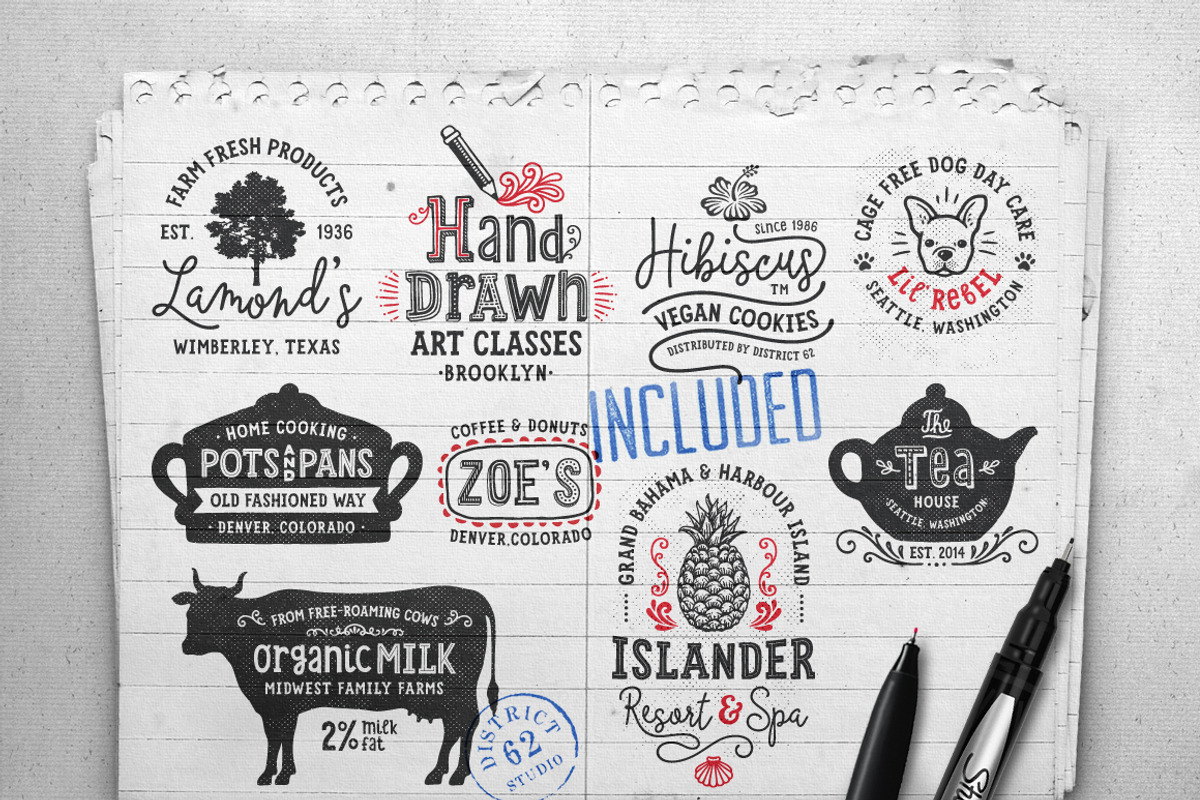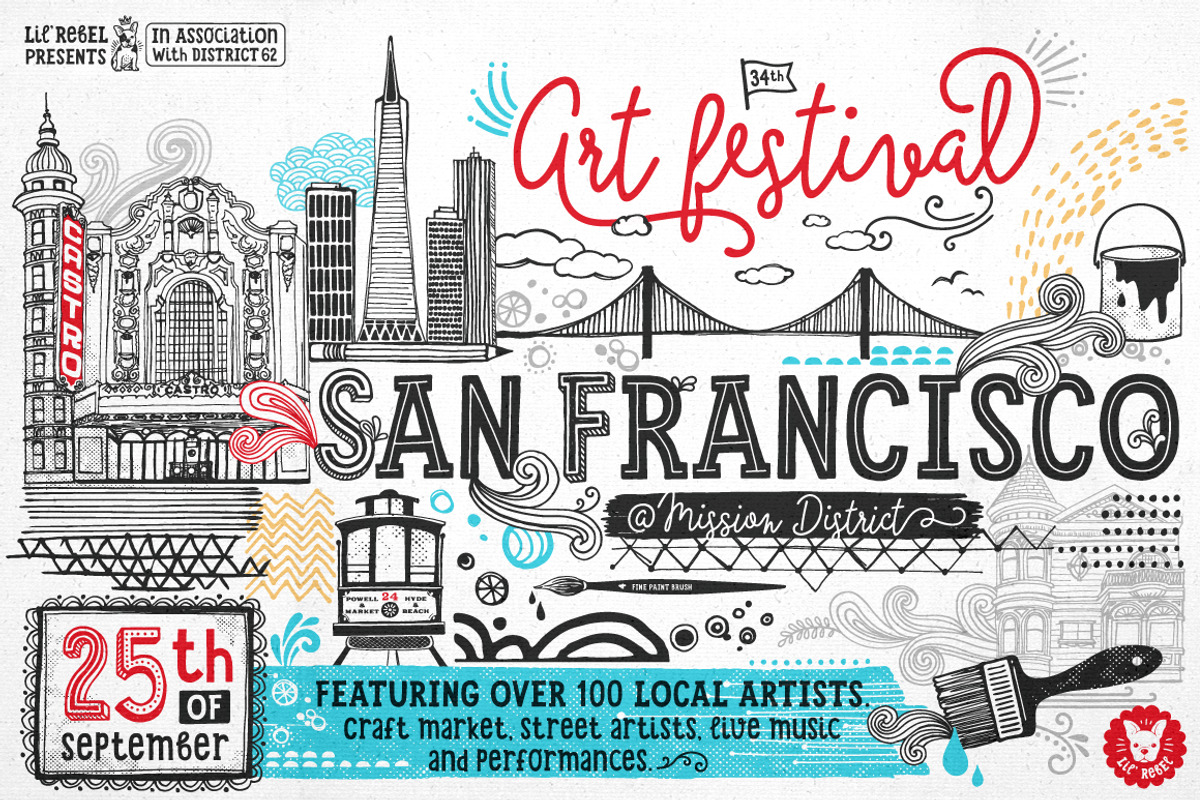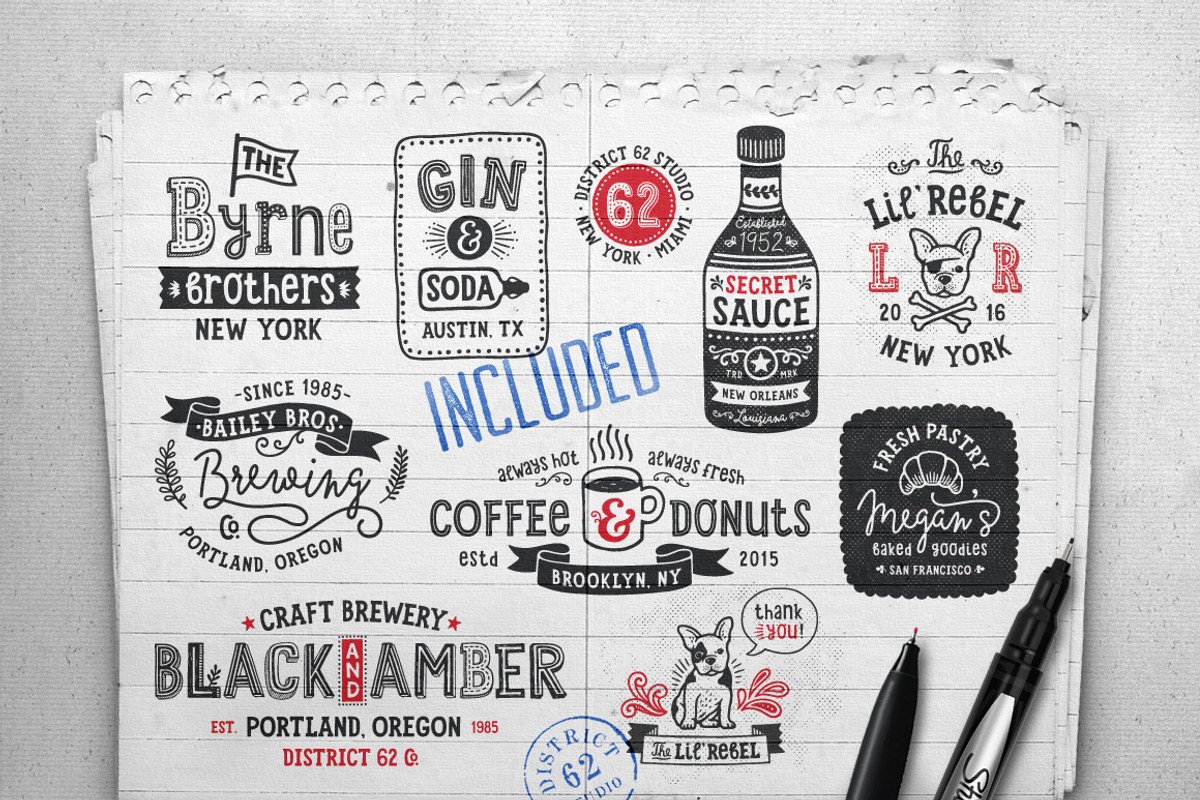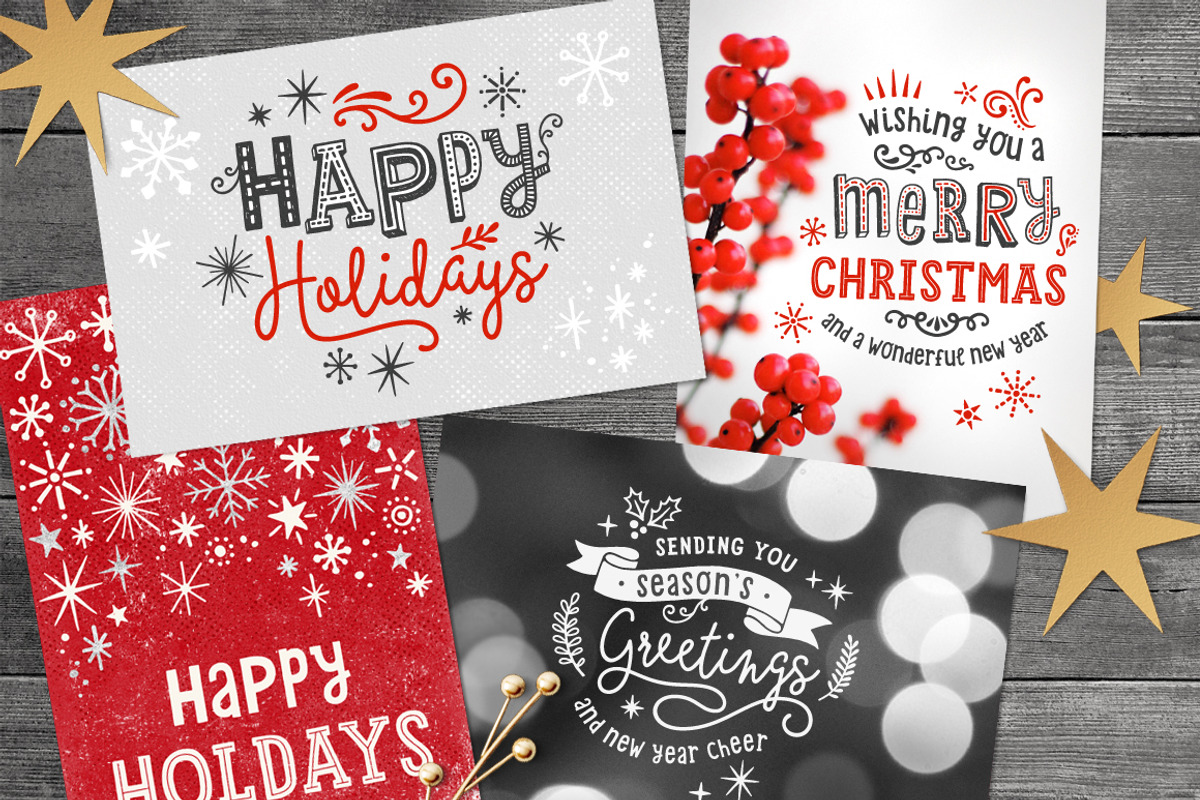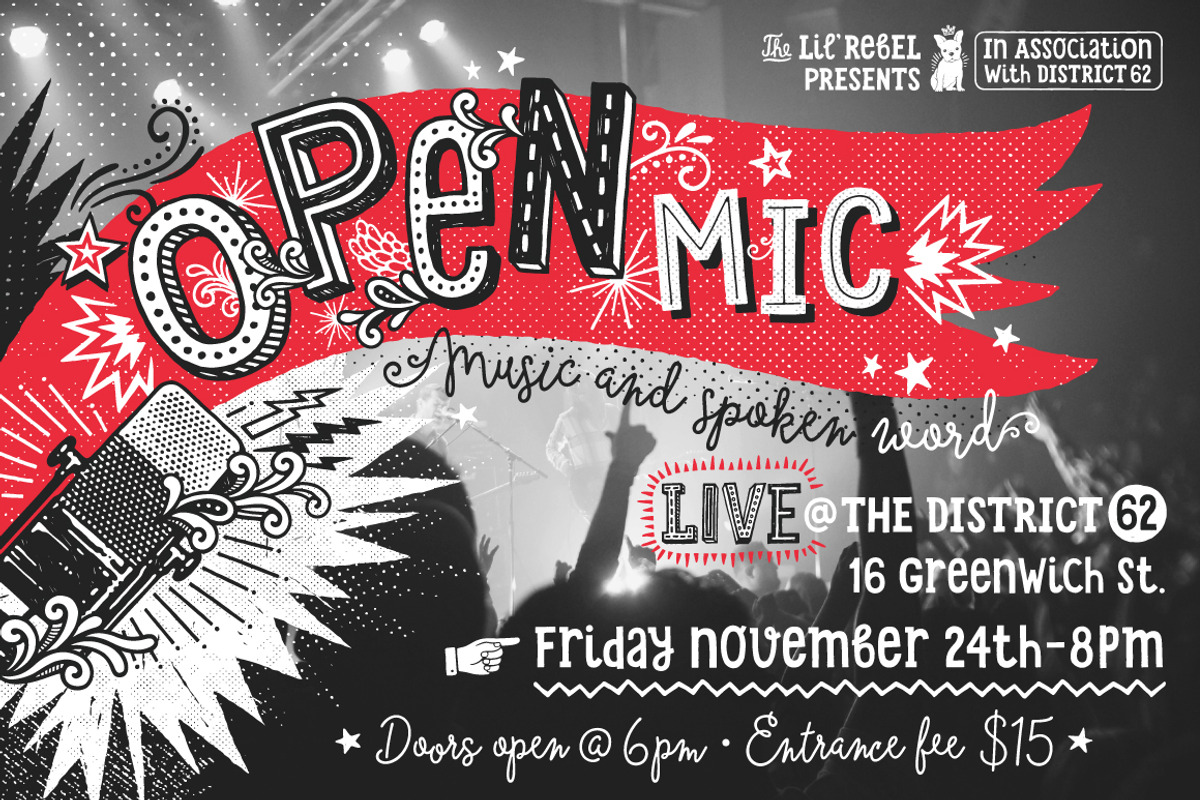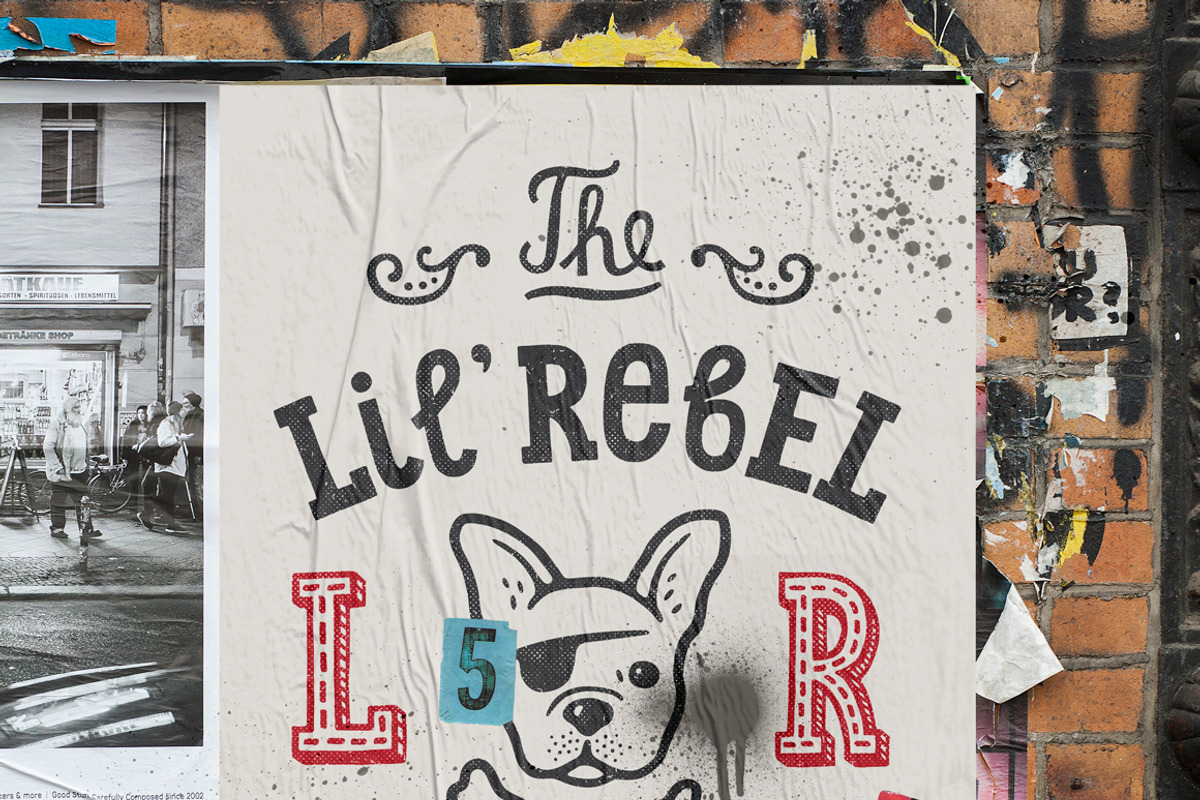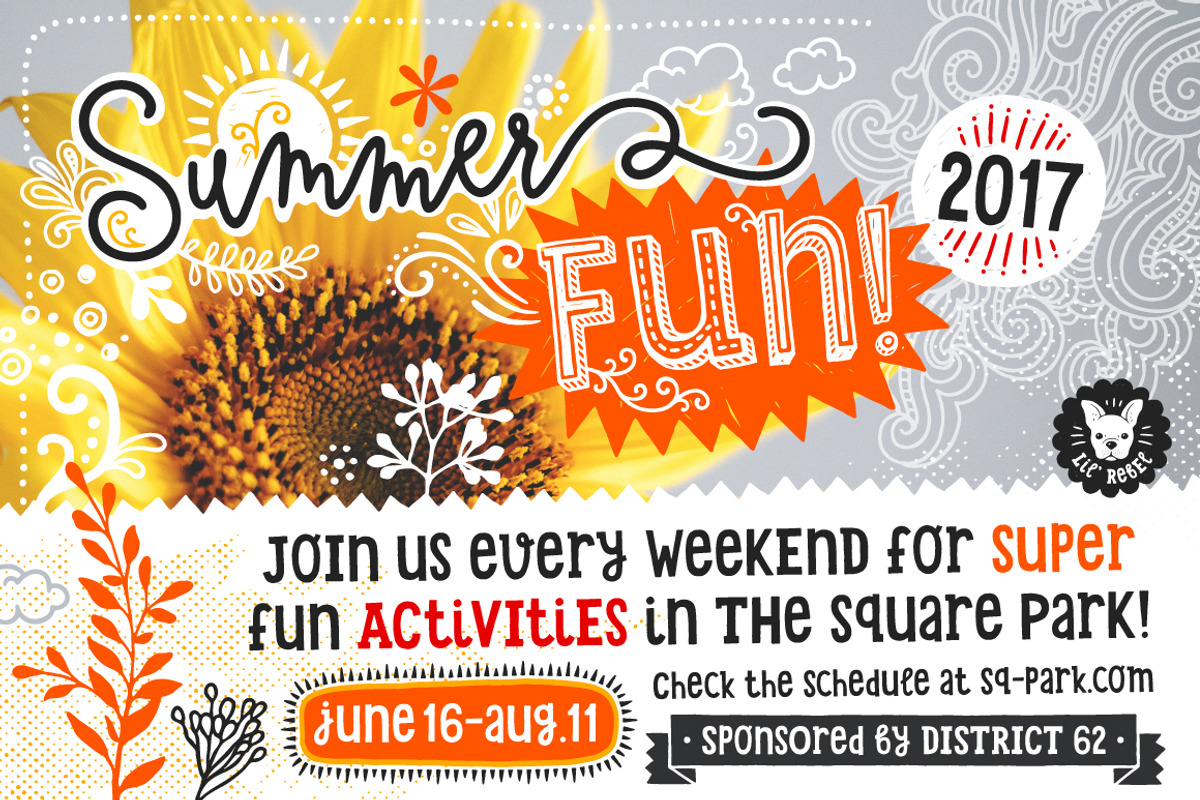
Lil' Rebel Font Collection
Lil' Rebel Font Collection by DISTRICT 62 STUDIO is a font selected for branding, posters, packaging, typography.
- The script has been designed to automatically cycle between its lower case characters to give a spontaneous, real hand drawn feel.
Why Lil' Rebel Font Collection is worth a look
Lil' Rebel Font Collection by DISTRICT 62 STUDIO fits naturally into Branding, posters, packaging, typography.